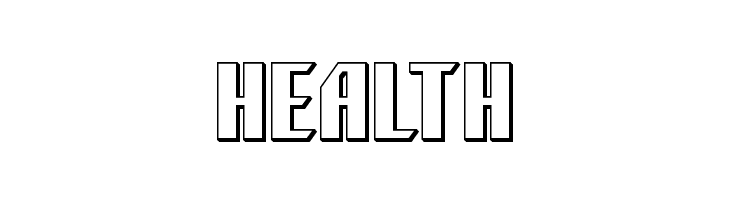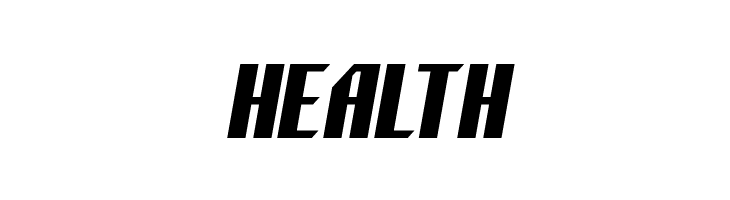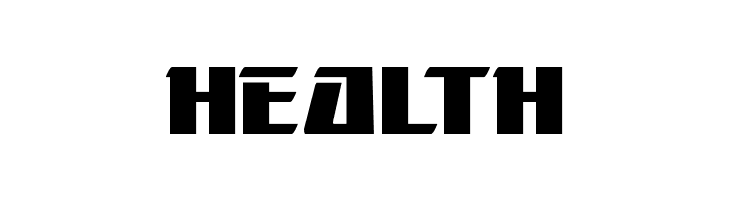
A bold, geometric font with sharp angles and high contrast.
A bold, geometric 3D font with a futuristic and industrial aesthetic.
A bold, angular font with a geometric style, perfect for impactful headlines.
A bold, angular font with a futuristic and industrial design.